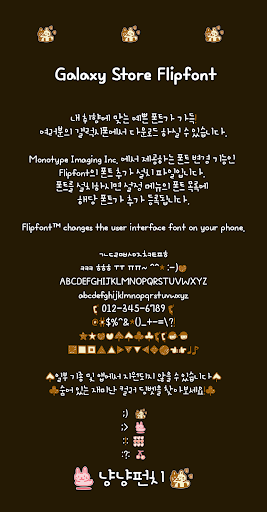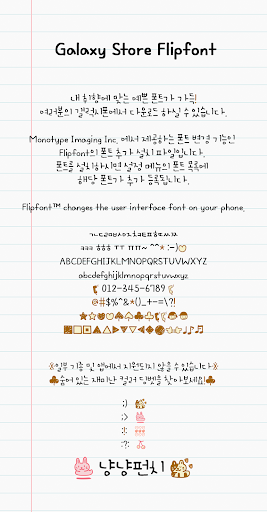
AhPunchPunch
It's a font that feels like Ahpont, where you're pressing down on the small things
It is characterized by the natural shape of a silkworm.
The line is set to the bottom of the middle to add a unique visual fun.
There's a special hidden dingbet hidden, so please look for it. :>